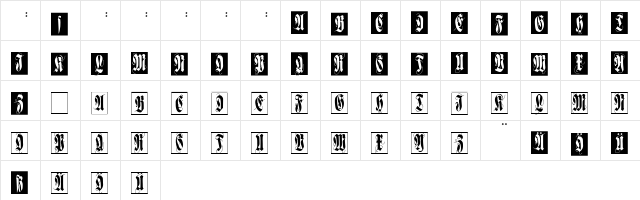
FlourishFraxCaps Regular
Design Context for FlourishFraxCaps Typeface
FlourishFraxCaps is a composed and adaptable typeface that performs quietly and consistently across a wide range of design contexts.